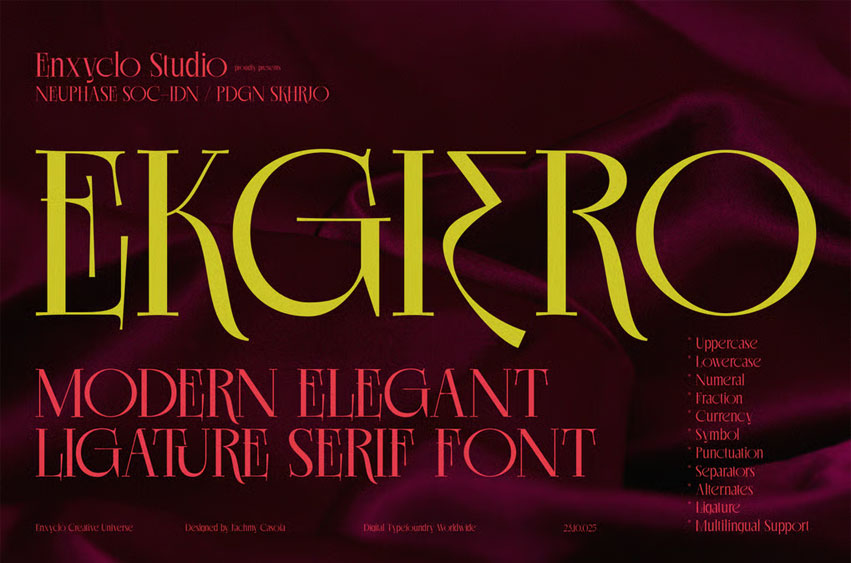
Ekgiero Font
Ekgiero Font is an elegant serif typeface designed to elevate your brand with a lavish and sophisticated touch. This modern font perfectly captures the essence of fashion, beauty, and aesthetics, making it an outstanding choice for creating bold logos and branding materials. Its extensive set of glyphs enhances versatility, allowing you to produce exquisite typography that stands out.
• Numeral, Punctuation & Symbols
• Ligatures and Alternates
• Fashion brands and logos
• Cosmetic and beauty products
• Skincare packaging and boutique branding
• Glamorous editorial designs
• Logos and identity systems
• Aesthetic packaging and advertising materials